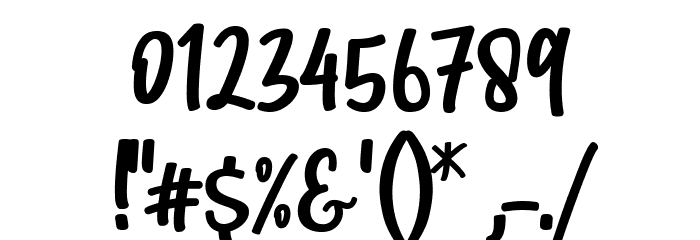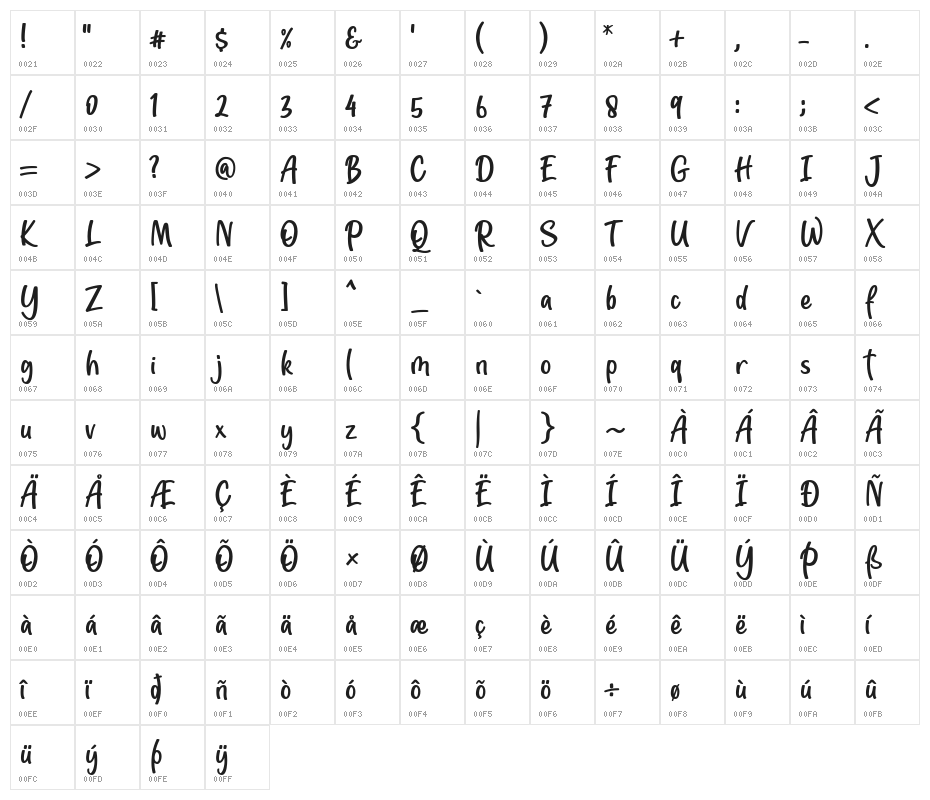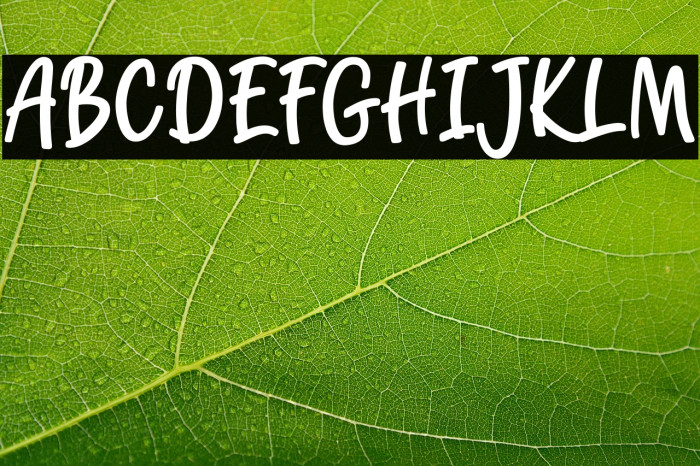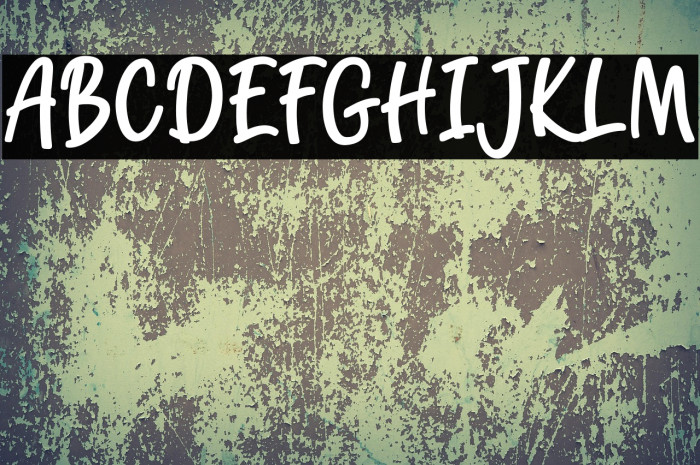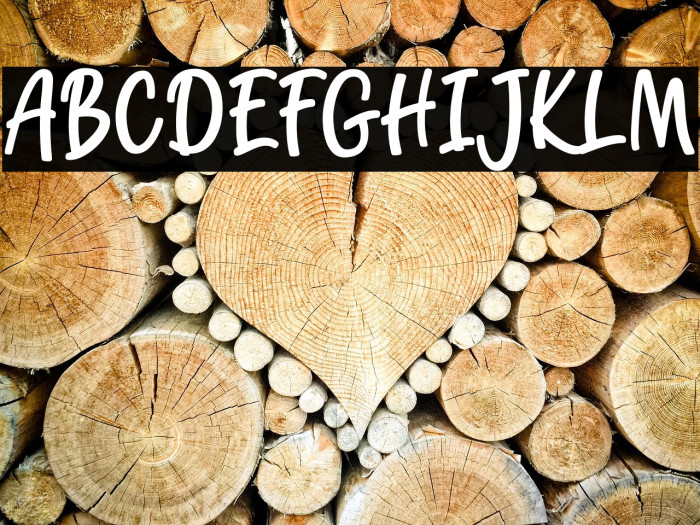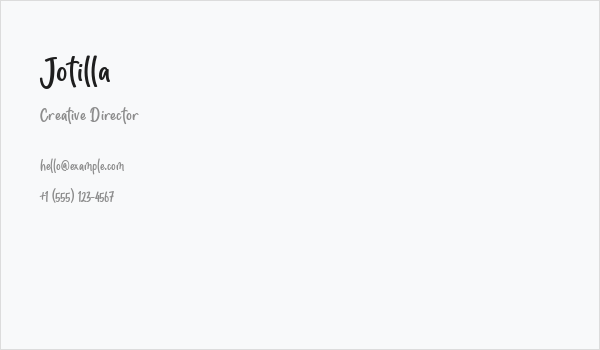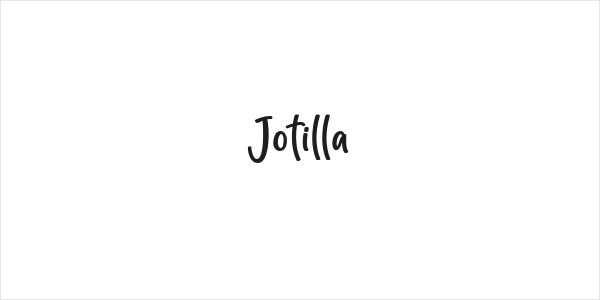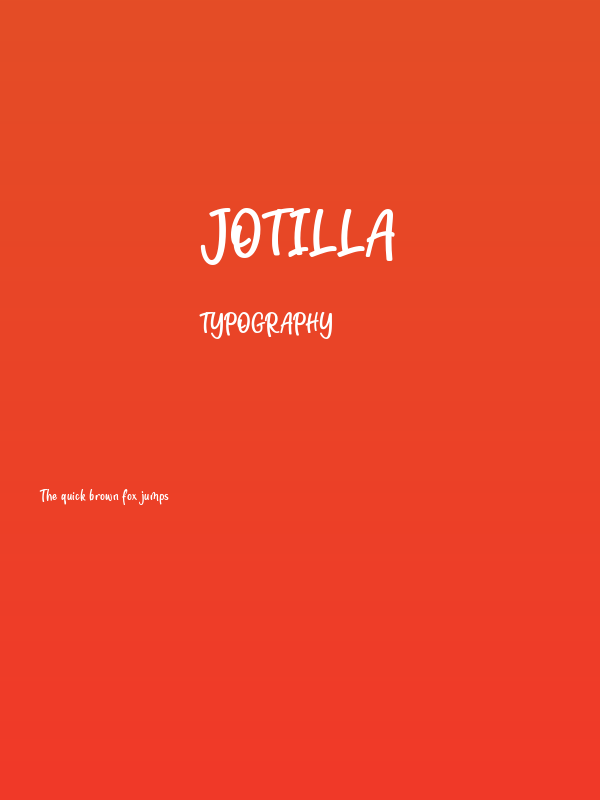
Jotilla Font
Jotilla Description
This font features a playful and energetic handwritten style, characterized by its bold and slightly irregular strokes. The letters have a casual, informal appearance, with a dynamic flow that suggests movement and spontaneity. The uppercase letters are tall and slightly narrow, while the lowercase letters maintain a consistent height, creating a harmonious balance. The numbers and special characters follow the same lively aesthetic, making the font versatile for various creative applications. Its unique charm and personality make it stand out, ideal for projects that require a personal touch.